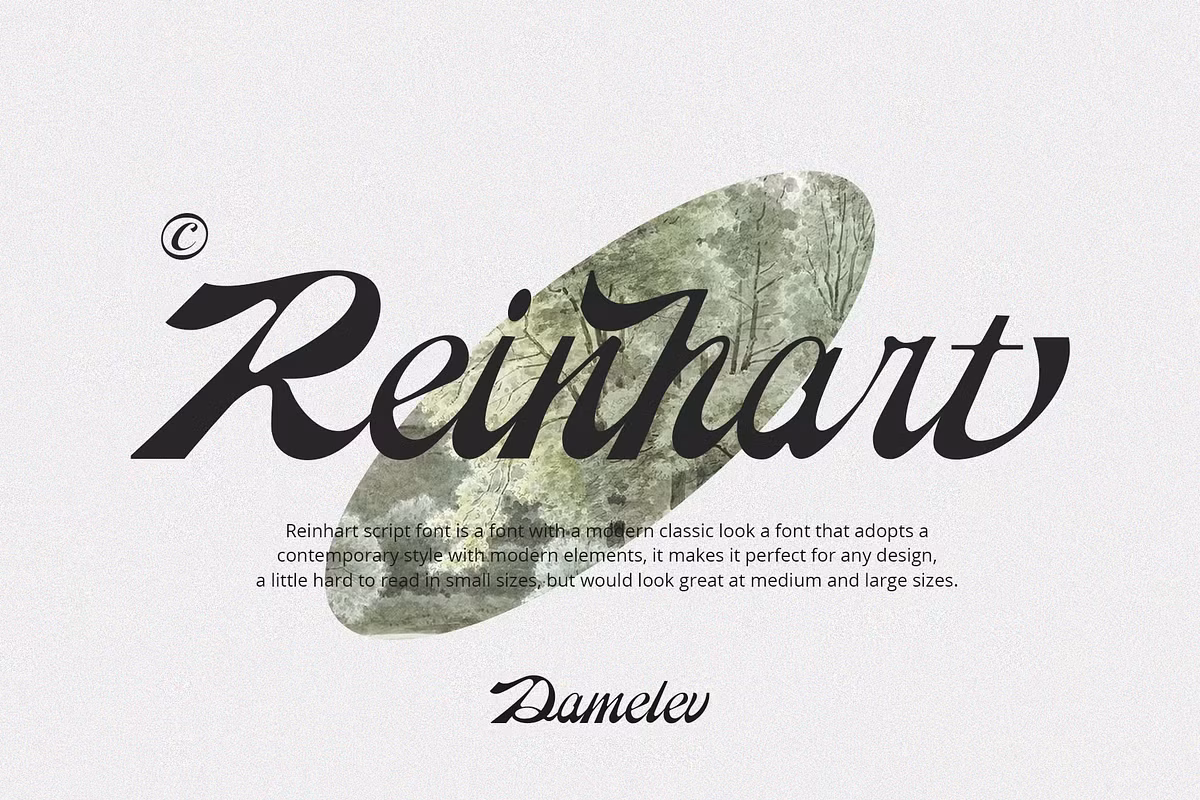
Please note that you must purchase this font for commercial use. You can download Reinhart Script Font for free, strictly for personal testing purposes only. Reinhart Script is a beautiful, flowing handwritten script font that exudes elegance and sophistication. With its smooth curves and fluid letterforms, Reinhart Script Font Free Download is perfect for creating stylish wedding invitations, branding, logos, social media posts, greeting cards, and any project that requires a personal, artistic touch.
The font offers a graceful, yet bold feel, ideal for both formal and casual designs. It includes uppercase and lowercase letters, numerals, punctuation, and multilingual support, providing flexibility for a variety of creative uses.
Whether you're designing for a luxury brand, a custom invitation, or crafting unique marketing materials, Reinhart Script adds beauty and refinement to your typography.